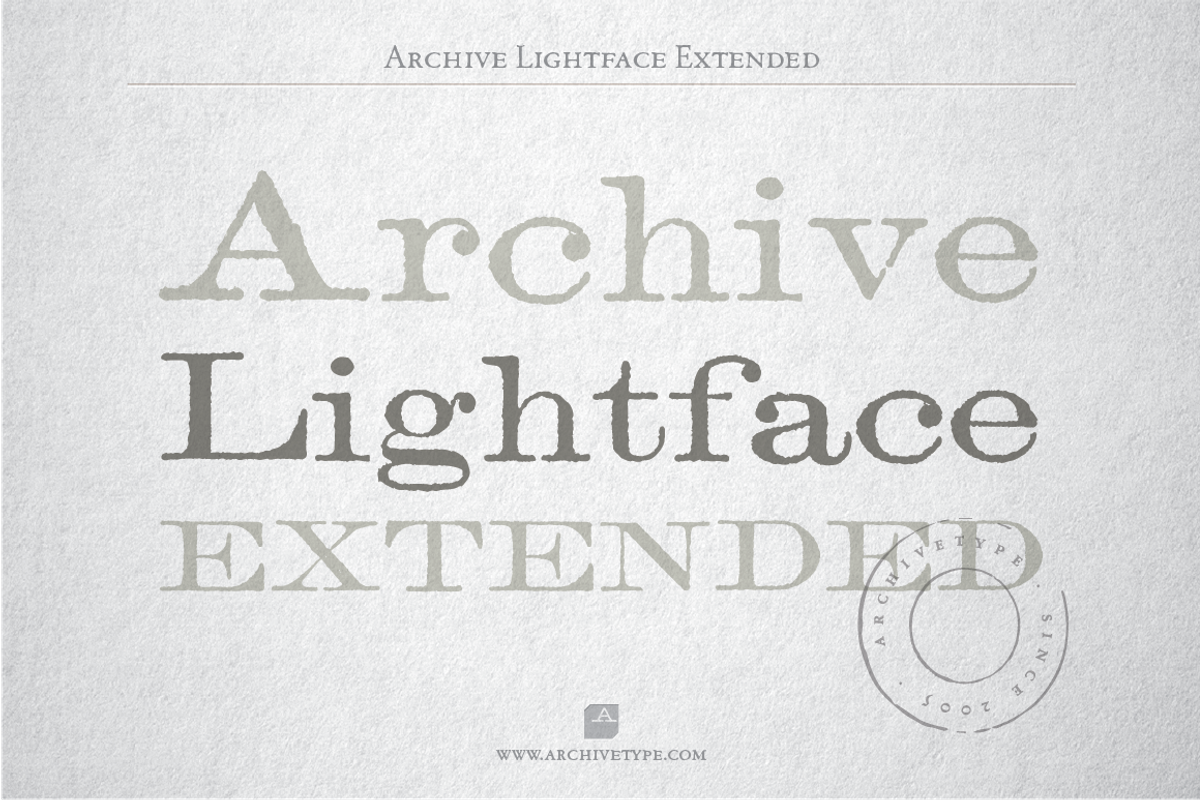
Archive Lightface Extended Font Free Download is a sleek, minimalist typeface that blends vintage charm with modern functionality. With its extended proportions and refined light weight, this font is perfect for editorial layouts, branding, posters, and web design projects that require both style and clarity. Its elegant letterforms and generous spacing offer a clean, contemporary look while maintaining a unique, archival feel.
Designers love Archive Lightface Extended Font Free Download for its versatility—it works beautifully in both large headlines and subtle subtext. Whether you’re aiming for a retro-modern aesthetic or a clean and professional vibe, this typeface adapts effortlessly to a wide range of creative contexts.